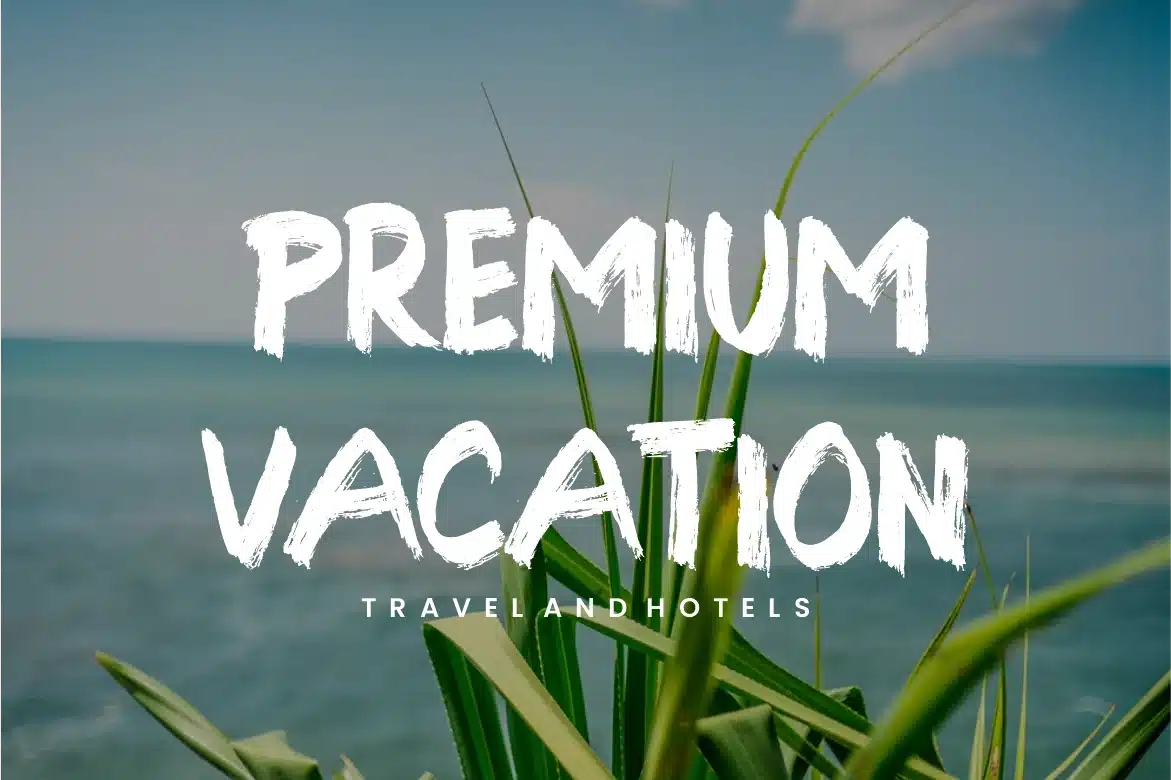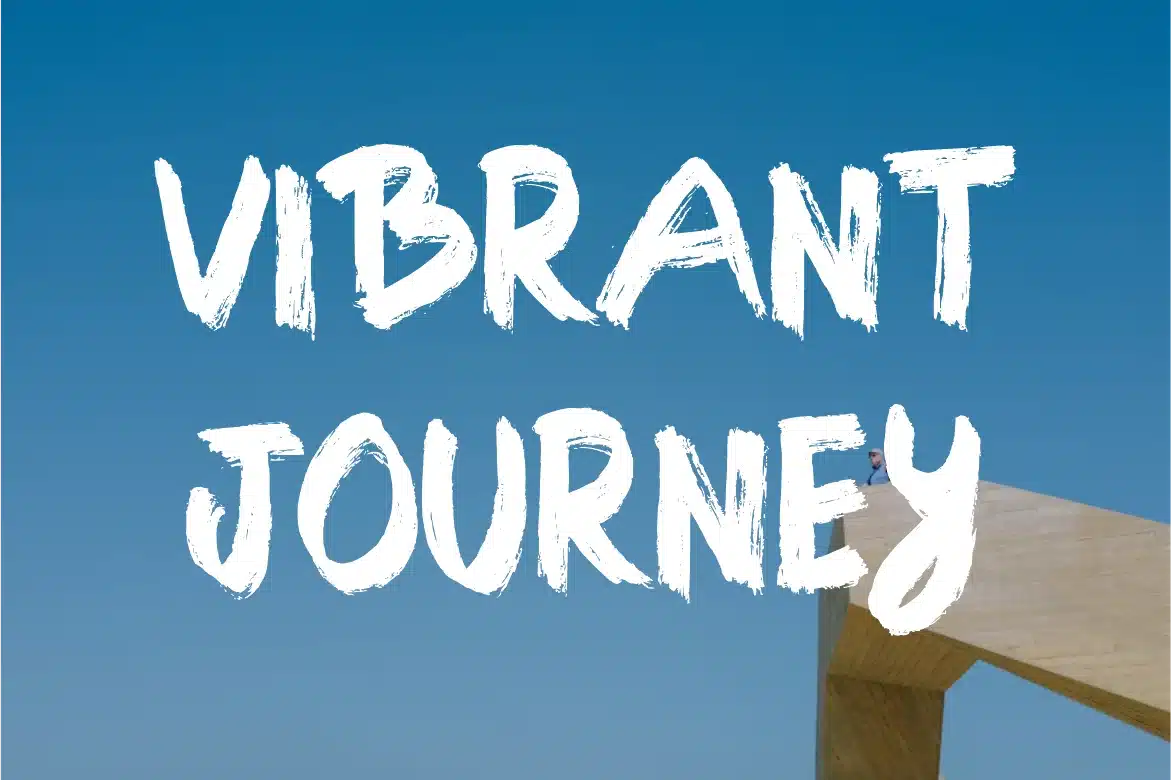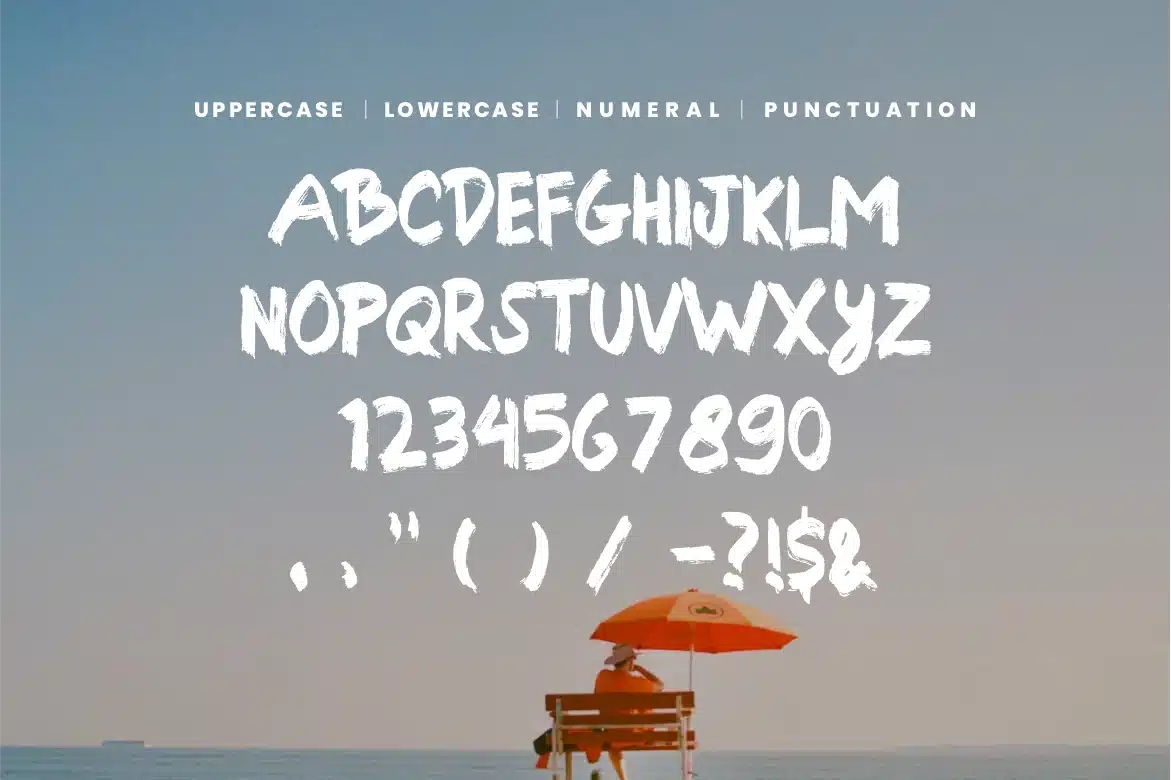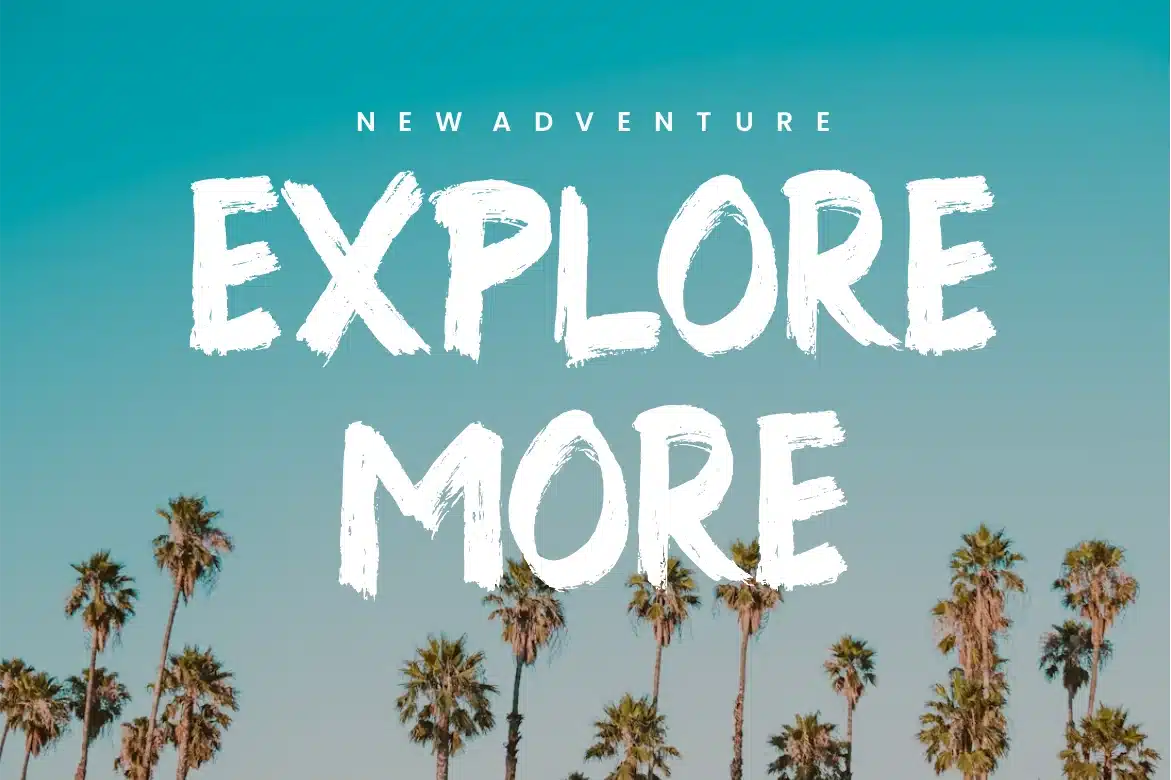
Heibro – Christmas Holiday & Travel Brush Font
HEIBRO is a powerful and energetic brush typeface that captures the raw, spontaneous texture of a hand-painted stroke. Designed for maximum impact, this font brings a rugged yet cheerful vibe to any project, whether you're designing for the beach or the big city.
With its thick, dry brush texture and confidently irregular lines, HEIBRO is perfect for projects that need to feel authentic, loud, and full of character. Use it to add an instant dose of urban edge, adventurous spirit, or casual cool to your brand.
Key Features You'll Love
Authentic Brush Texture: Features realistic, dry brush imperfections that maintain a genuine, handcrafted look even at large sizes.
All Caps Design: Strong, attention-grabbing letterforms designed for high-impact headlines and titles.
+Complete Character Set: Includes uppercase letters, numerals, and punctuation for versatile display use.
HEIBRO's bold style makes it an excellent choice for a variety of dynamic projects:
Sports & Action: Event posters, team graphics, and motivational slogans.
Social Media & Video: YouTube thumbnails, Instagram quotes, and dynamic title cards.
Branding: Coffee shops, craft beverages, surf/skate brands, and creative businesses.
Music: Album covers, concert flyers, and festival marketing.